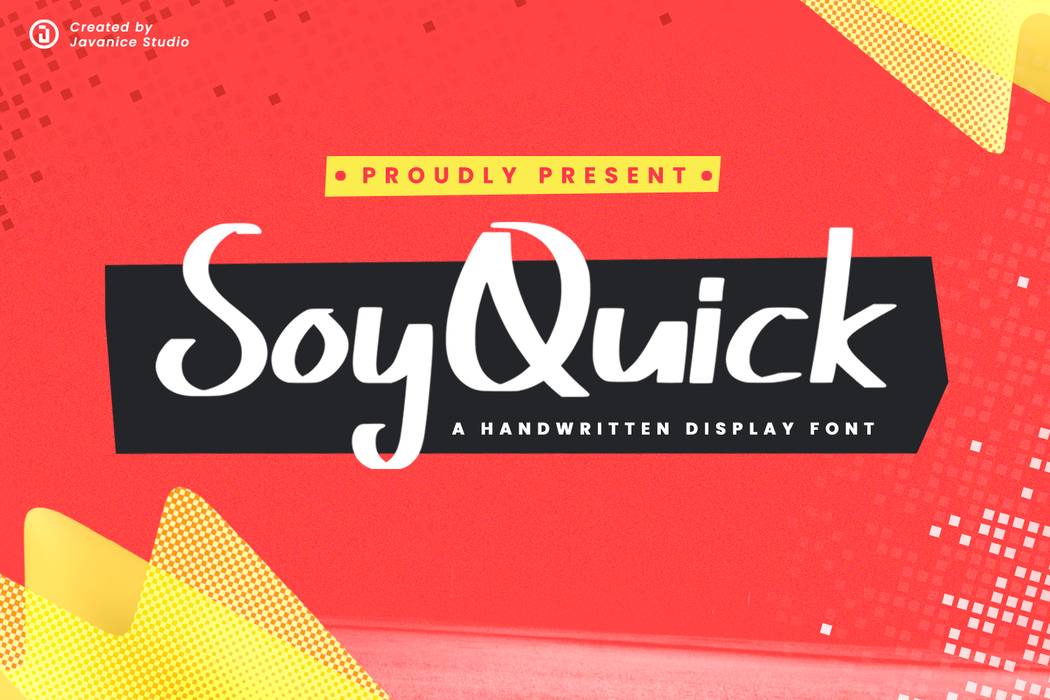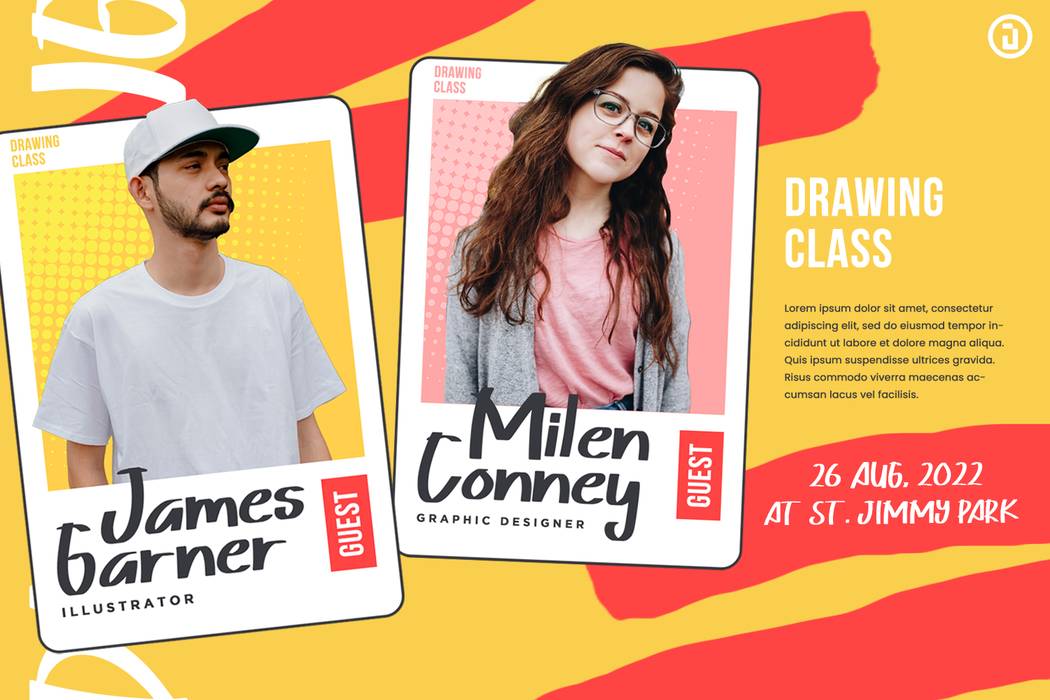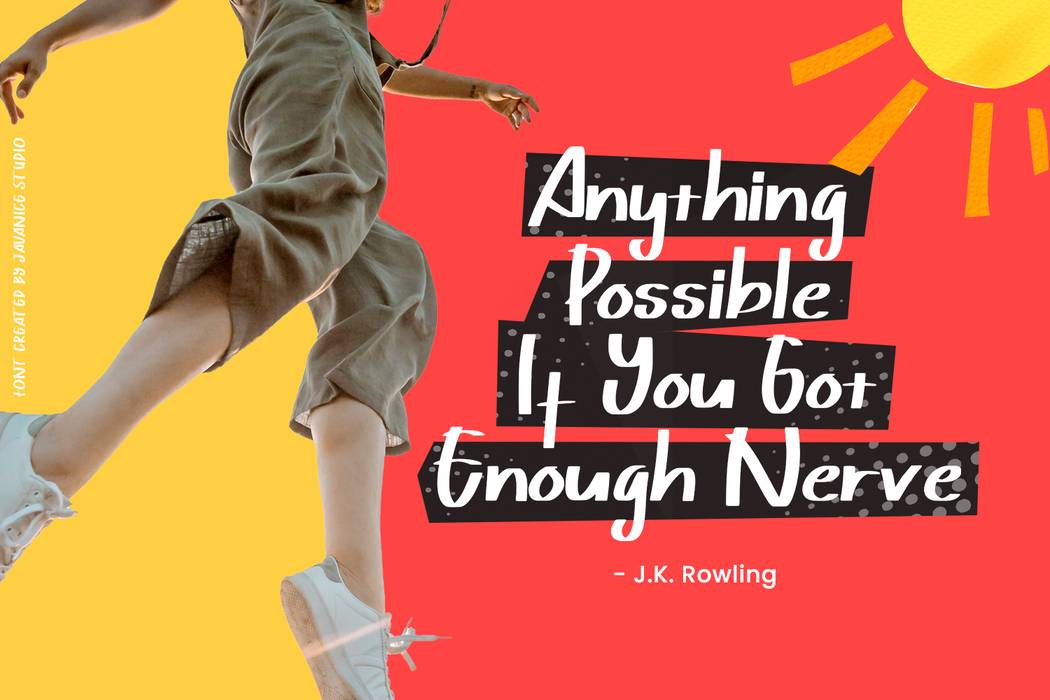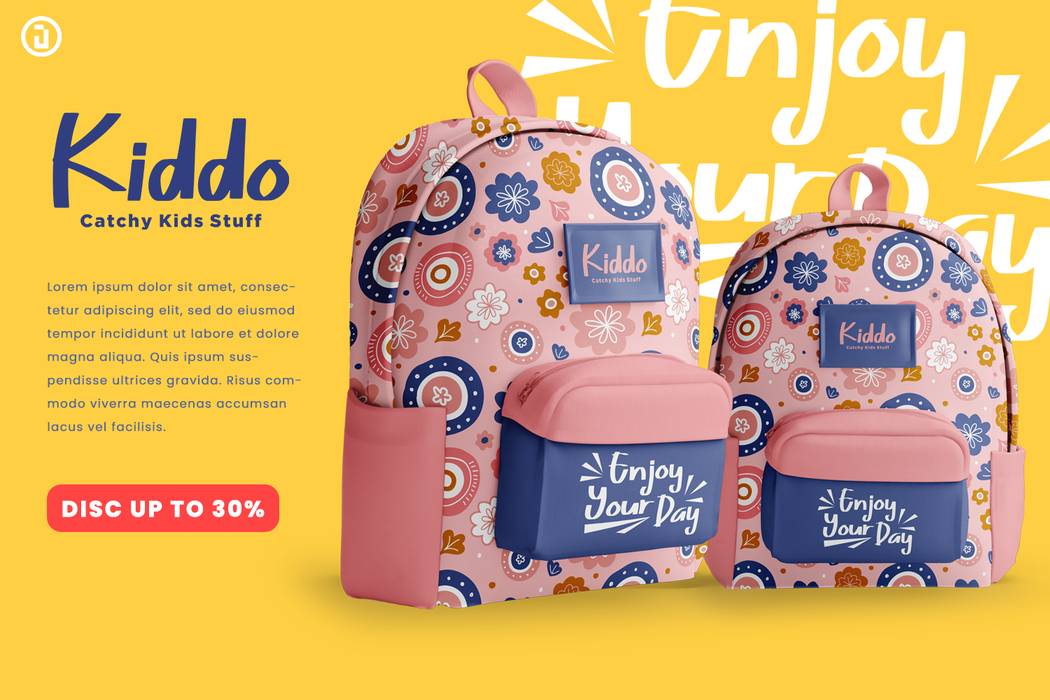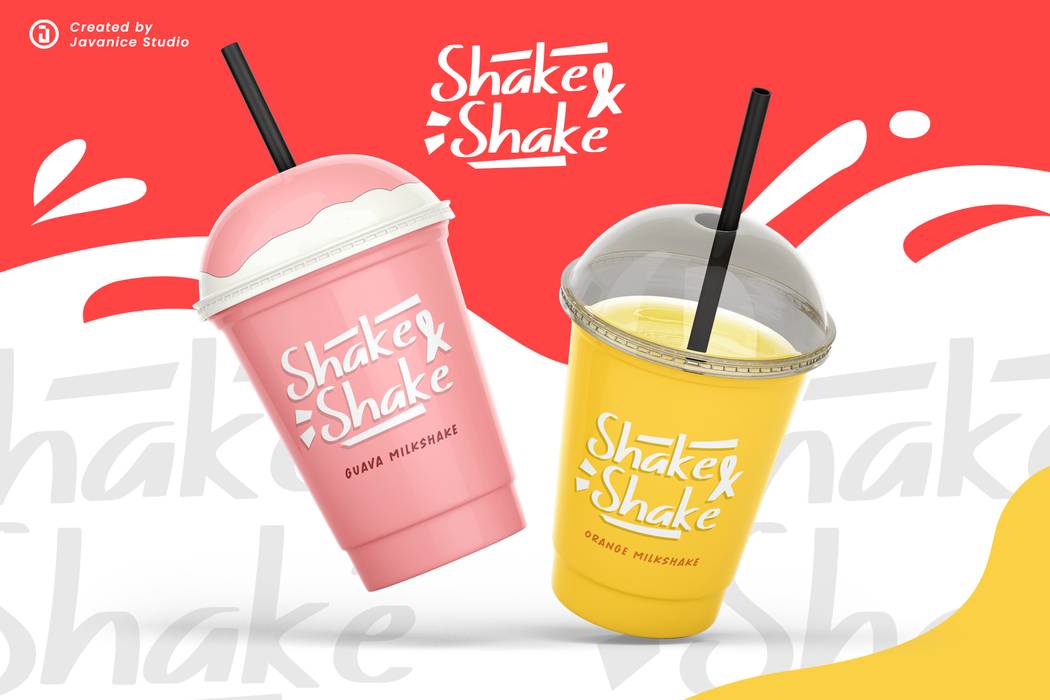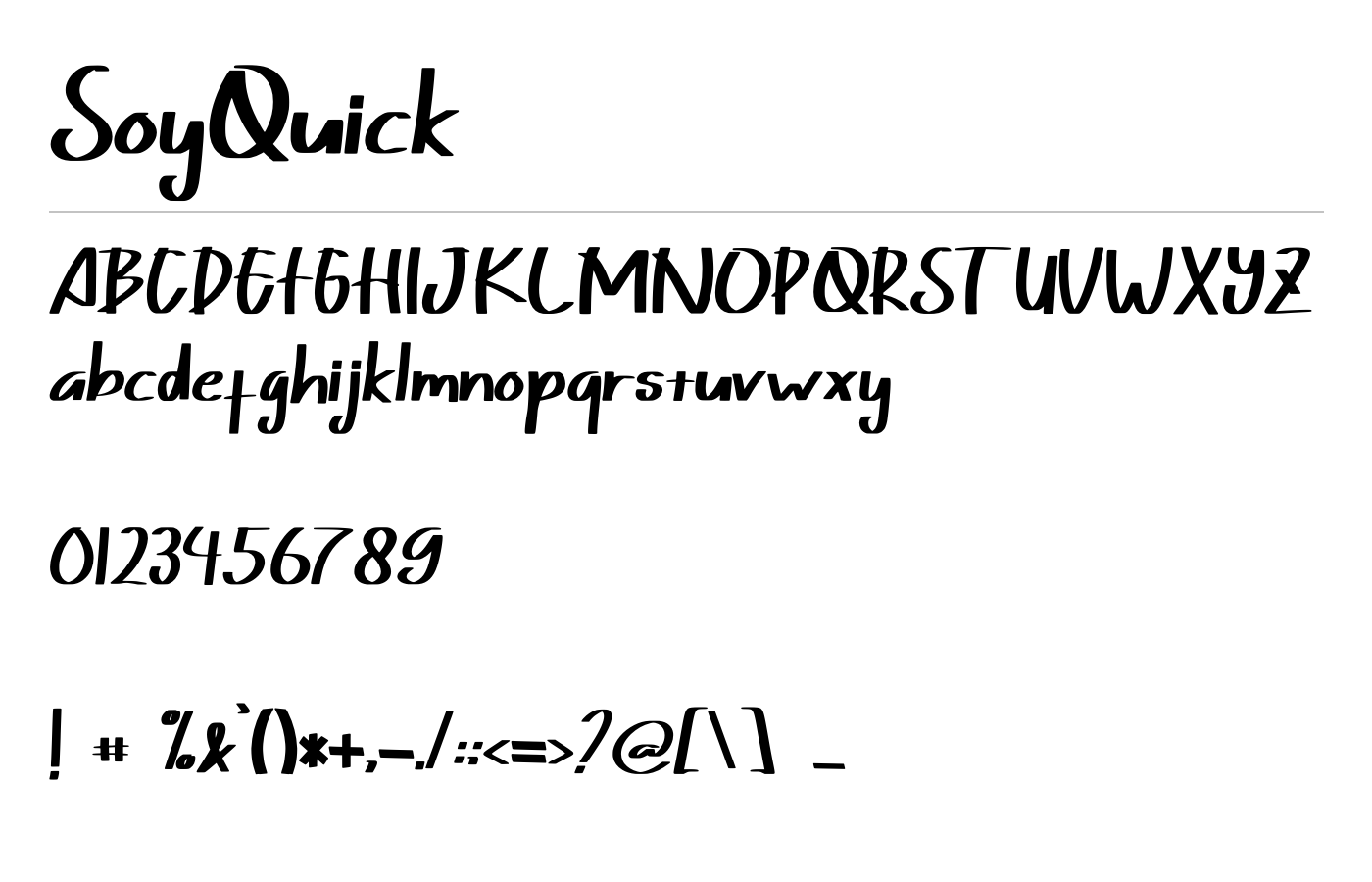
SoyQuick is a lively and bold script-inspired sans serif font with a slightly condensed width and smooth, flowing strokes that combine geometric and calligraphic elements. It features dynamic letterforms, including a distinctive single-story "g" and unique capitals with playful curves, making it ideal for energetic branding, headlines, and creative projects needing a friendly yet confident feel. This font works well where you want to convey approachability and spontaneity, such as in logos, posters, and lifestyle packaging.
| Font family | SoyQuick Font |
| Designer | JAVANICE STUDIO |